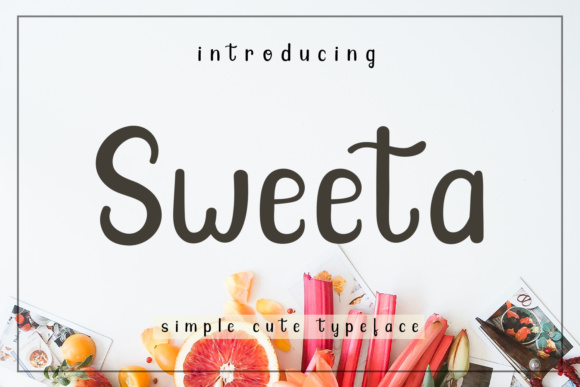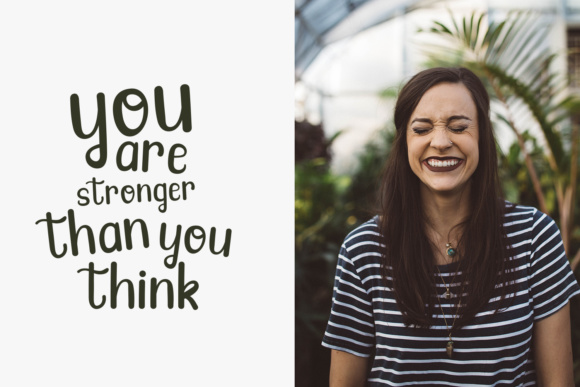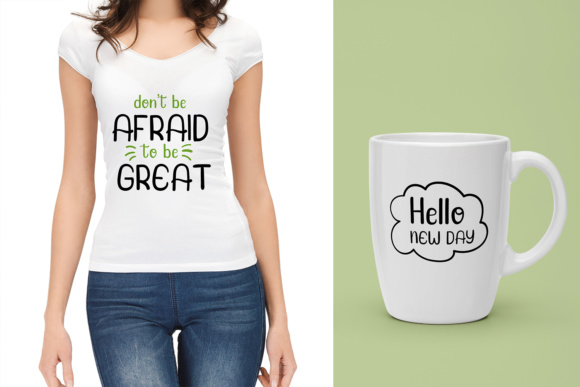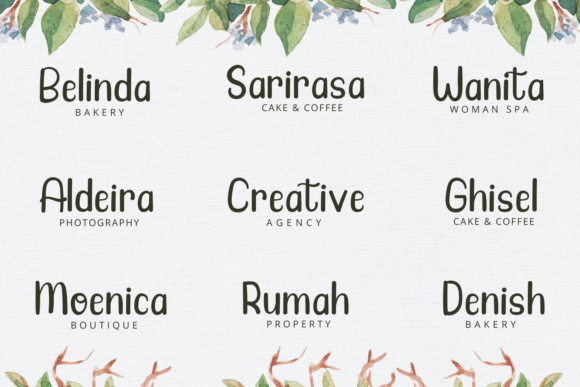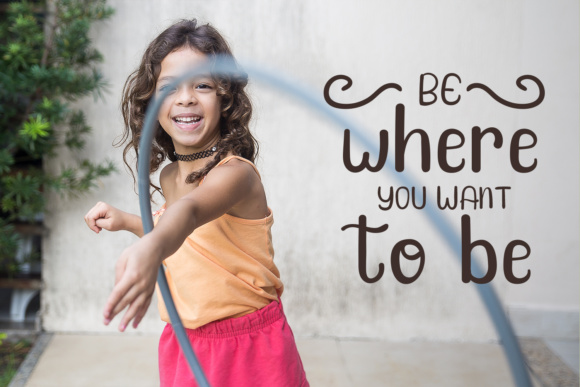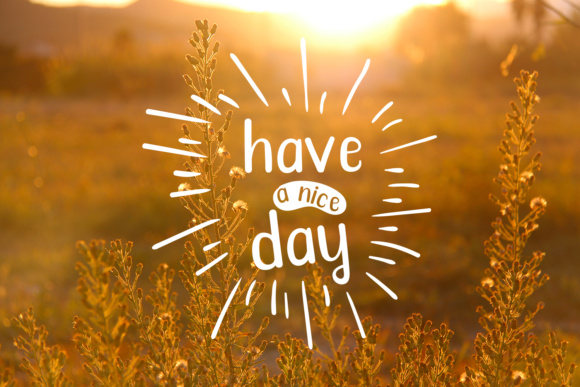
Sweeta Font
About Sweeta Font
Sweeta is a simple and cutesy font crafted to complement your designs beautifully. This font is great for a large range of projects given its legibility and modern appeal with handwritten brush appearance.